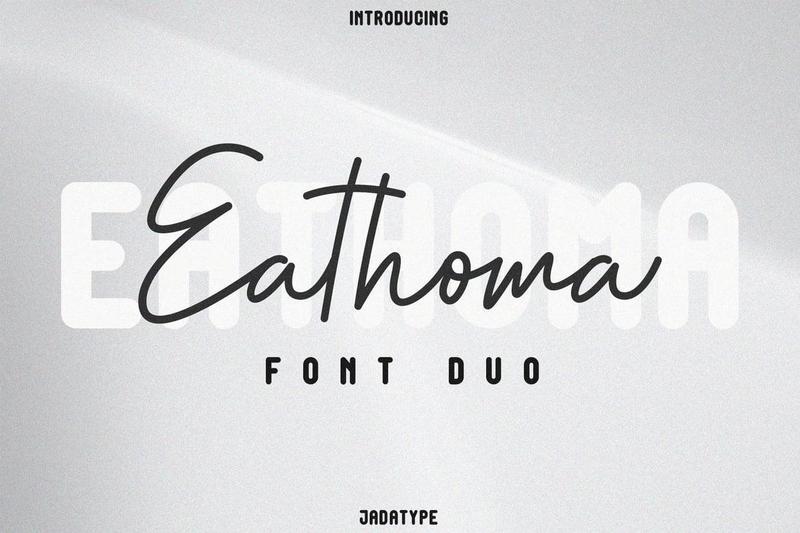
Eathoma – Modern Typography Pairing WQULMFN
Eathoma Font Duo is a modern font pairing that combines an elegant handwritten script with a clean sans serif typeface. Designed to work harmoniously together, this versatile duo creates beautiful typography with a perfect balance of personality and readability, making it suitable for both bold headlines and refined supporting text.
Perfect for branding, logo design, product packaging, invitations, editorial layouts, website headers, social media graphics, posters, and other creative display projects. The combination of script and sans serif styles offers flexibility for a wide variety of contemporary design applications. The fonts include standard English letters, numbers, punctuation, and multilingual support.
**What’s in the Font Itself**
Standard uppercase and lowercase letters\
Numbers and basic punctuation\
Elegant script and modern sans serif letterforms\
Several accented characters for multilingual support\
Styles included: Eathome Script & Eathome Sans